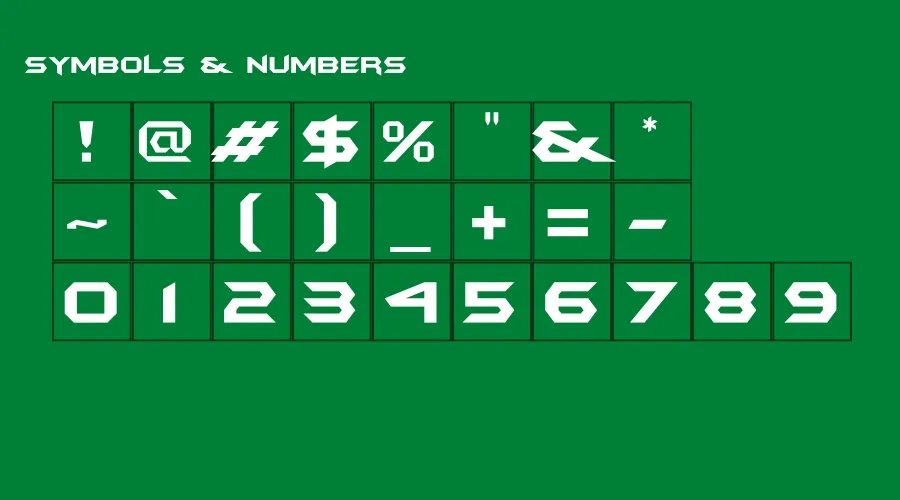
About Batman Forever Alternate Font
Batman Forever Alternate Font is a font designed by American graphic developer Bob Kane which has occasionally been replicated in other styles. Like the “Sunday Best Oblique” font, he created another oblique san serif design for the typography.
Later, the Batman Forever typeface became highly popular. Throughout comic films and books using Comics icons, the Batman typeface has gained popularity.
People commonly wish to employ this typeface for various work because it has grown so famous. This category comprises many distinct typefaces.
Graphic designer John Roshell created the most current iteration of the Batman movie logo font 18 years ago for a marketing campaign for Batman Returns.
The typeface has come to be an iconic typeface because it has a beautiful design. It’s often used for branding and publicity and marketing purposes.
You can also utilize this typeface for developing cutting-edge invitations, blog designs, advertising, decor, artwork quotes, card designs, birthday card designs, mug designs, and so on.
Because of its difficult texture and dense and difficult letters, the font was used for numerous applications. It’s an amazing typeface for commercials, artwork for films, and other cinematic banners.
You could define the distinction in your work through the use of it. This is a fun and joyful font that is sure to add some excitement to your next design project.
So, you should have tried it and had fun. This typeface is normally used for making captions, brief idioms, and labels.
Is Batman Forever Alternate font have great readability?
This typeface has unbelievable significance. It may be an extremely flexible textual style that can be utilized for numerous purposes.